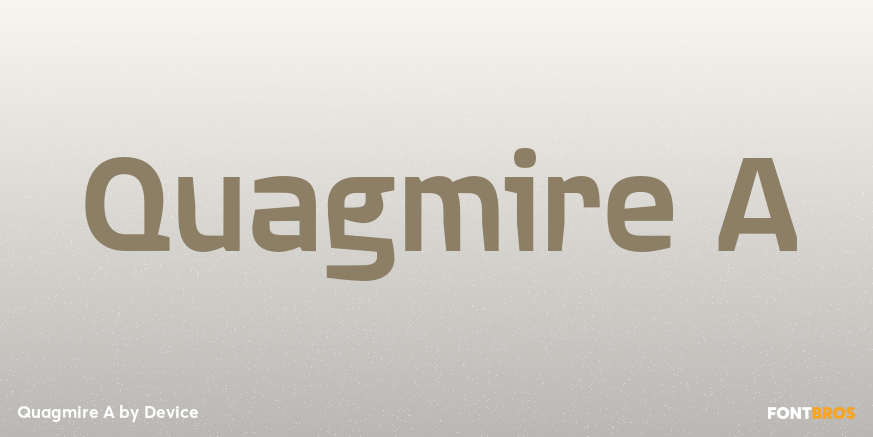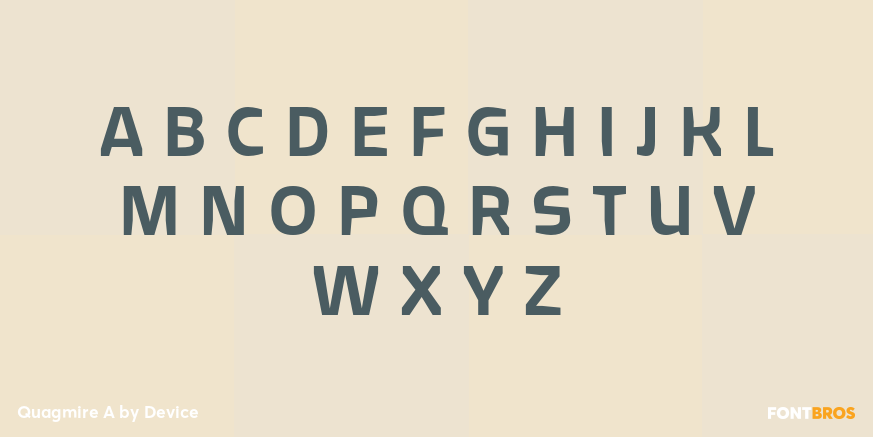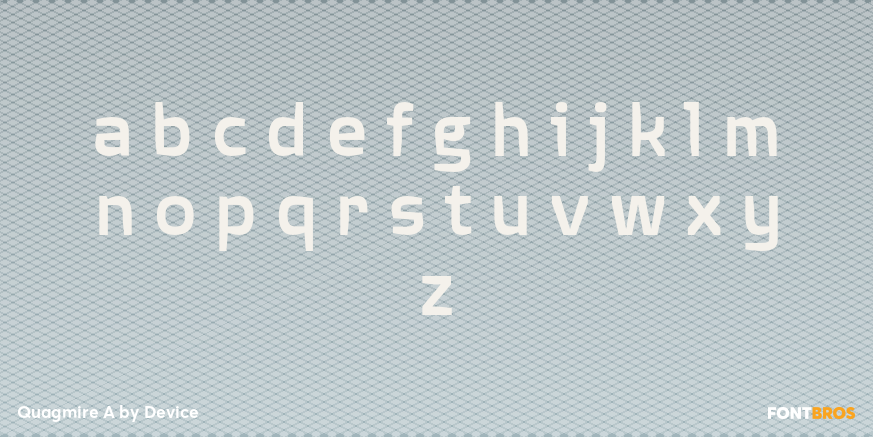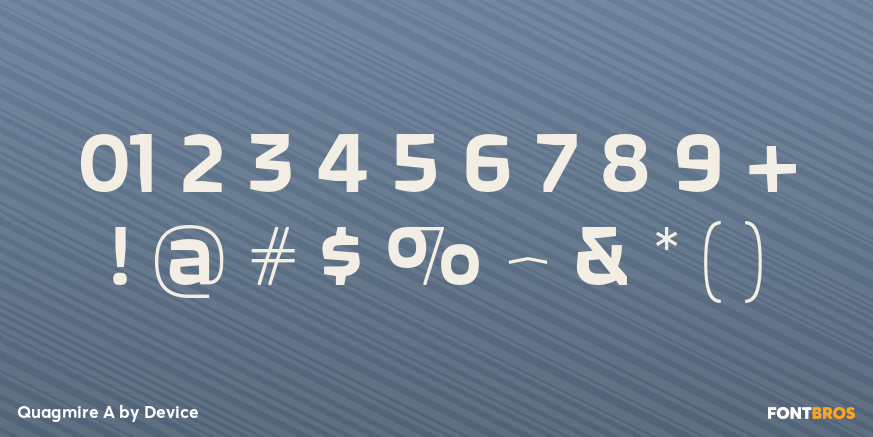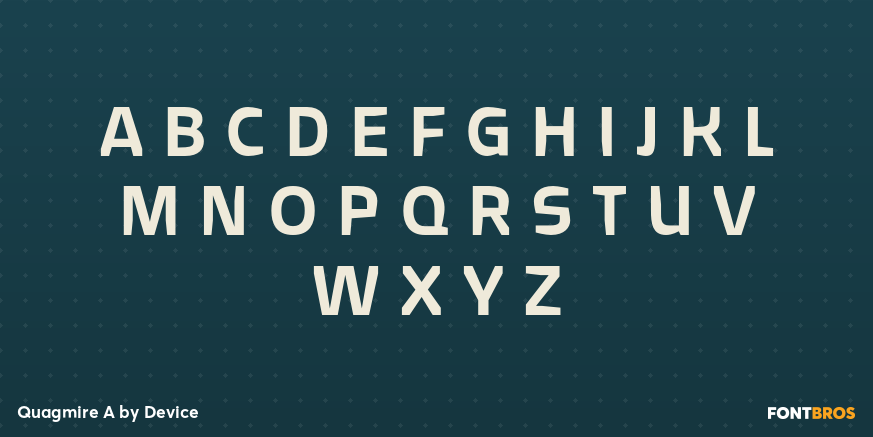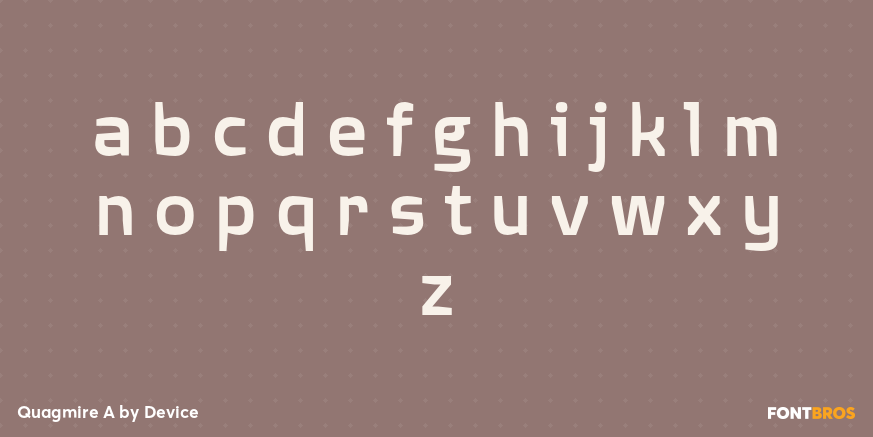
Quagmire A
Font Family by Device Fonts
Quagmire A is a futuristic sans serif with a sharp, forward-looking presence. Its clean construction and italic companions give it a sense of motion, making it a strong choice when you want typography that feels sleek, modern, and distinctly tech-minded.
This family includes 4 styles: Medium, Medium Italic, Bold, and Bold Italic. That range gives you practical flexibility for display-driven work, whether you're building logos, packaging, posters, branding systems, signage, or digital graphics that need a streamlined contemporary voice.
Designed by Device, Quagmire A balances a crisp sans serif structure with a stylized futuristic edge, making it especially useful for projects that call for a modern display face with both clarity and attitude.